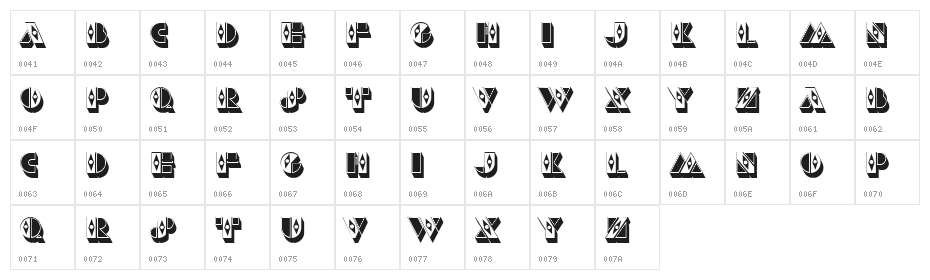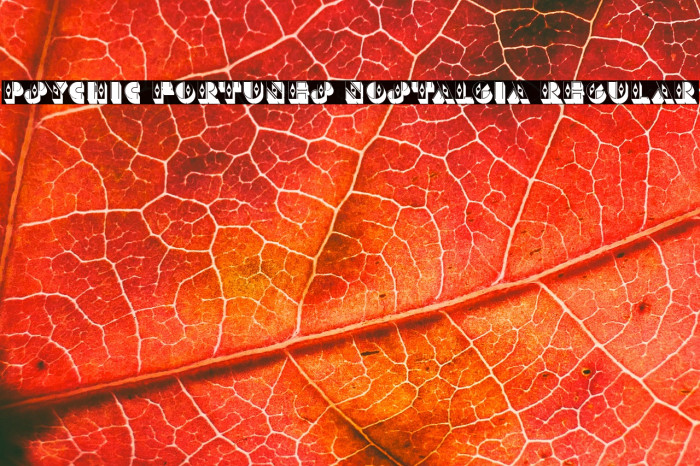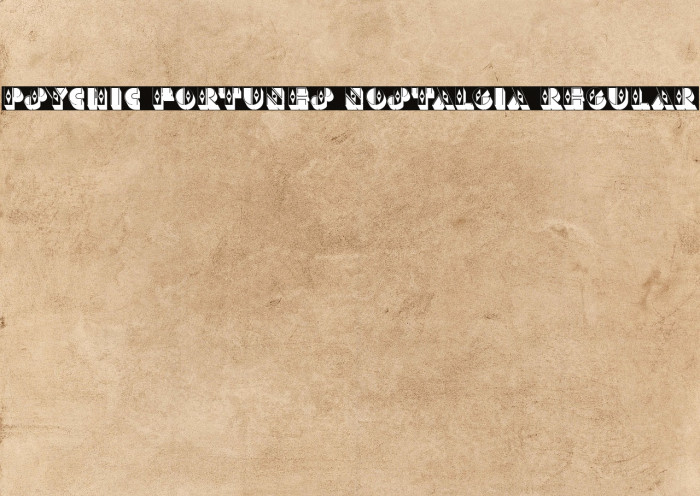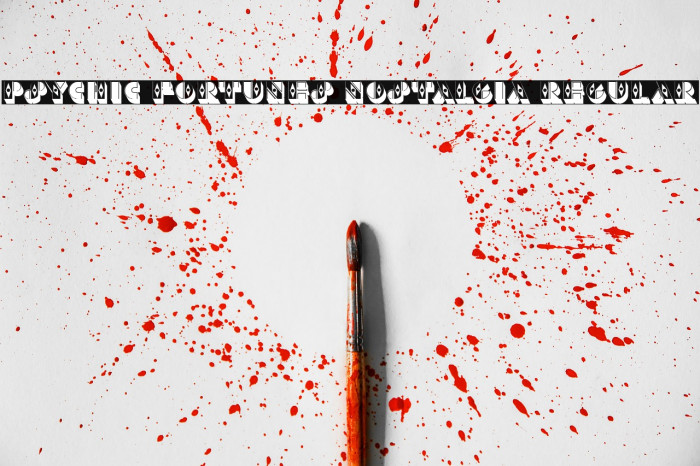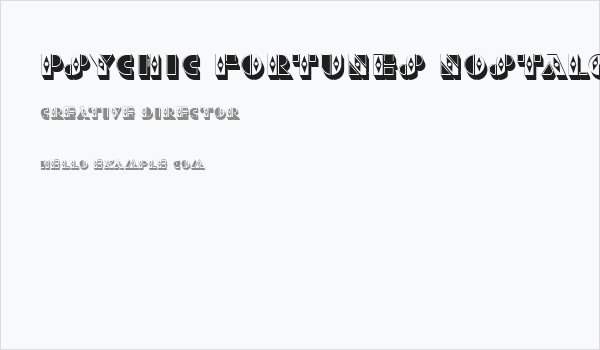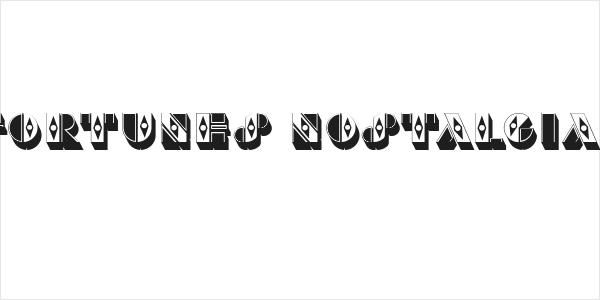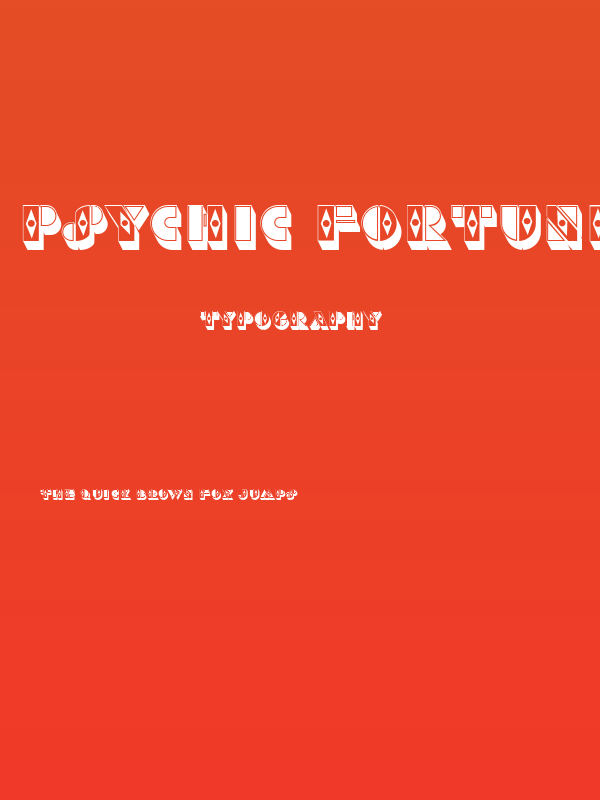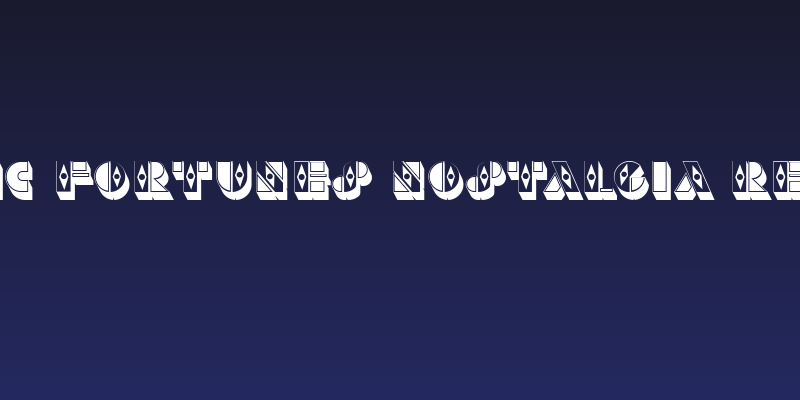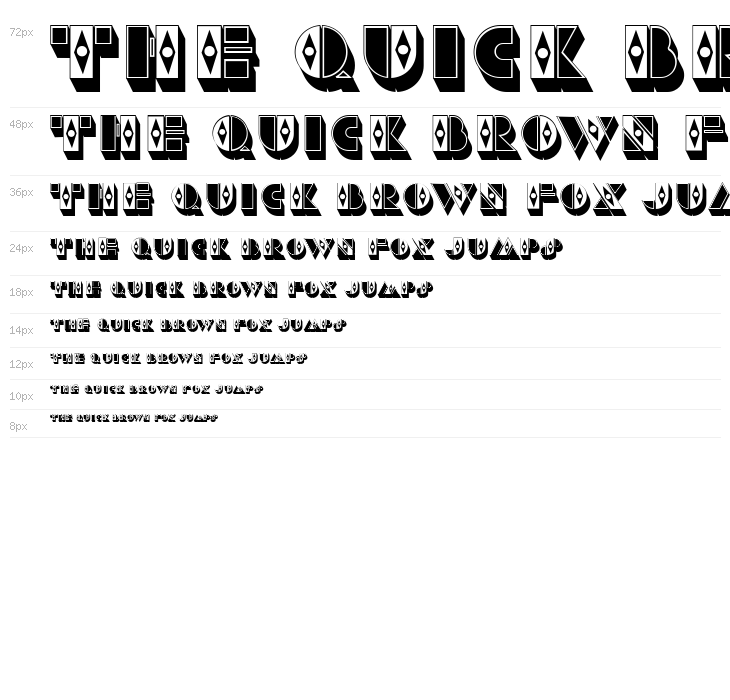
Psychic Fortunes Nostalgia Regular Font
Psychic Fortunes Nostalgia Regular Description
This font features a bold, decorative style with a nostalgic flair. Each character is designed with intricate geometric patterns and a three-dimensional effect, giving it a unique and eye-catching appearance. The letters are filled with contrasting black and white shapes, creating a sense of depth and movement. The overall design is reminiscent of vintage signage or retro futuristic aesthetics, making it ideal for projects that require a standout, artistic touch. The font's playful yet structured form makes it suitable for creative and expressive design work.
| Overall Style | Vintage, Decorative |
| Proposed Projects | Ideal for posters, album covers, branding, and any project needing a retro or artistic touch. |